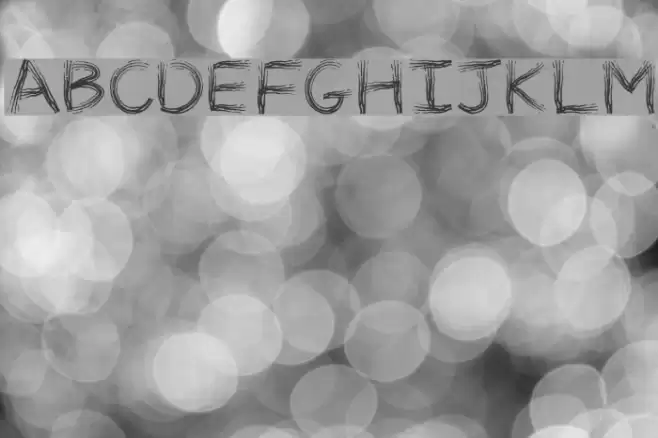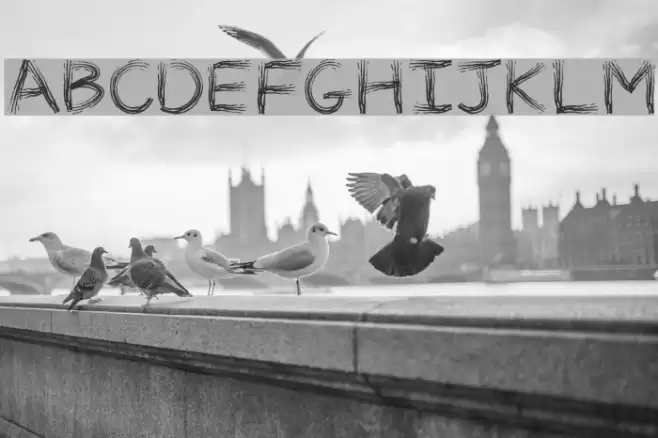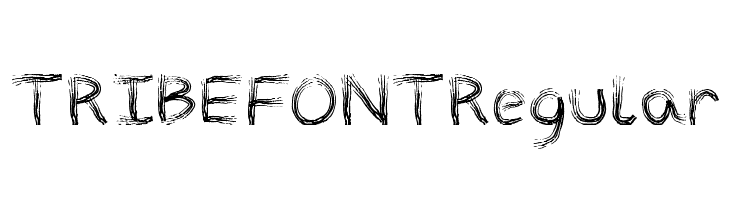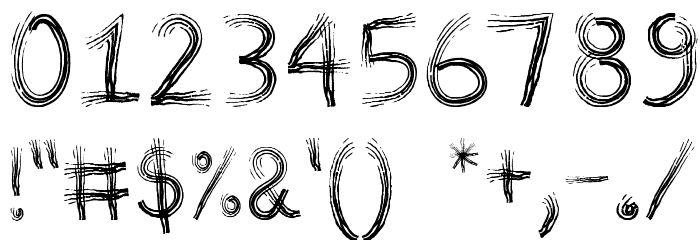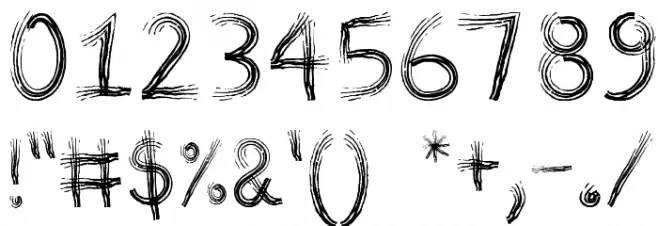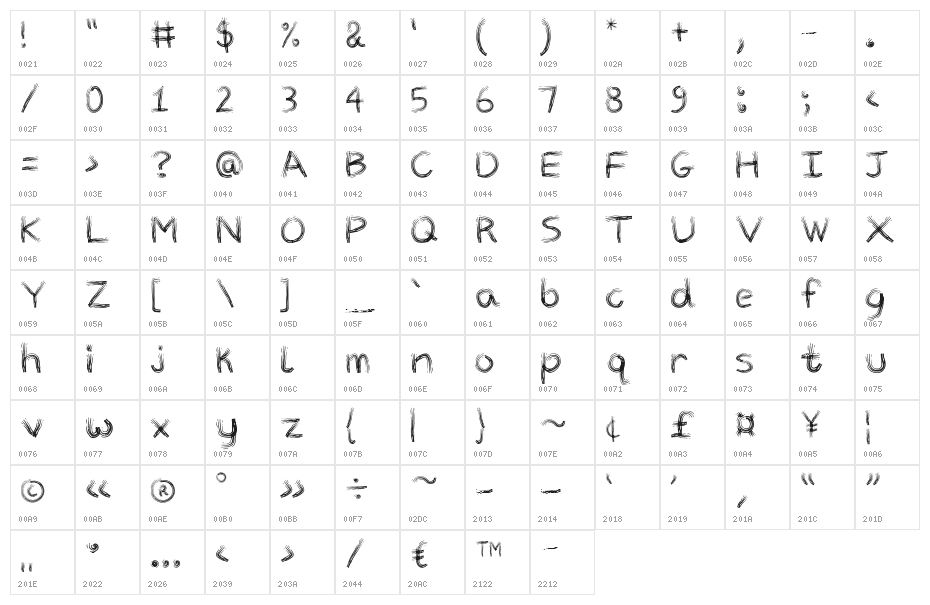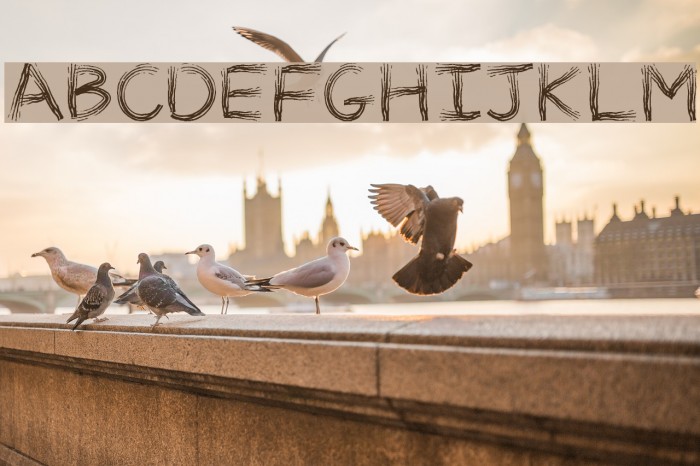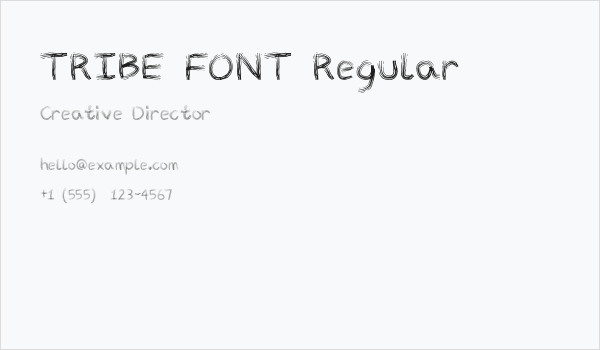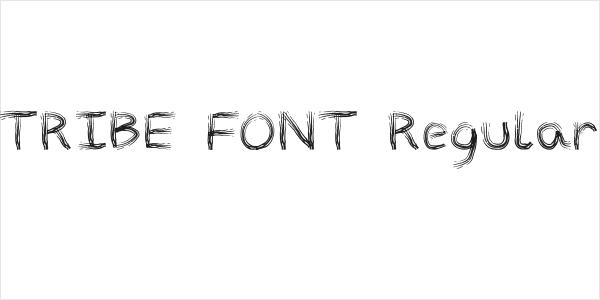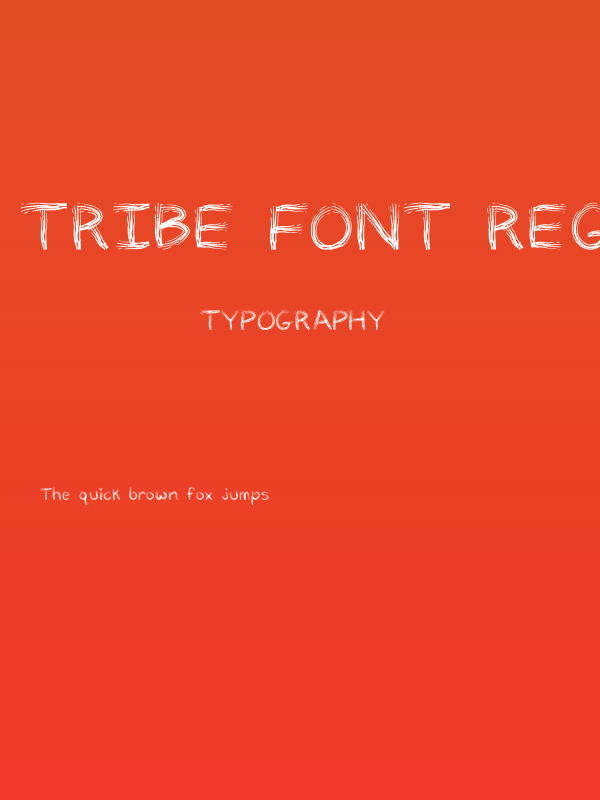
TRIBE FONT Regular Font
TRIBE FONT Regular Description
This font features a unique, hand-drawn style with a rough, textured appearance. Each character is crafted with irregular strokes, giving it a dynamic and energetic feel. The letters are slightly uneven, adding to the organic and artistic vibe. This font is perfect for projects that require a personal touch or a creative flair. The uppercase and lowercase letters maintain a consistent style, while the numbers and special characters complement the overall design. The font's distinctive look makes it ideal for eye-catching headlines and artistic designs.
A hand-drawn, textured font with an energetic and artistic style from Uncategorized fonts.
- Proposed Projects: Ideal for creative projects, artistic posters, unique branding, and eye-catching headlines.
- Overall Style: Artistic, Hand-drawn
- Use Case: Headlines, Artistic designs, Branding